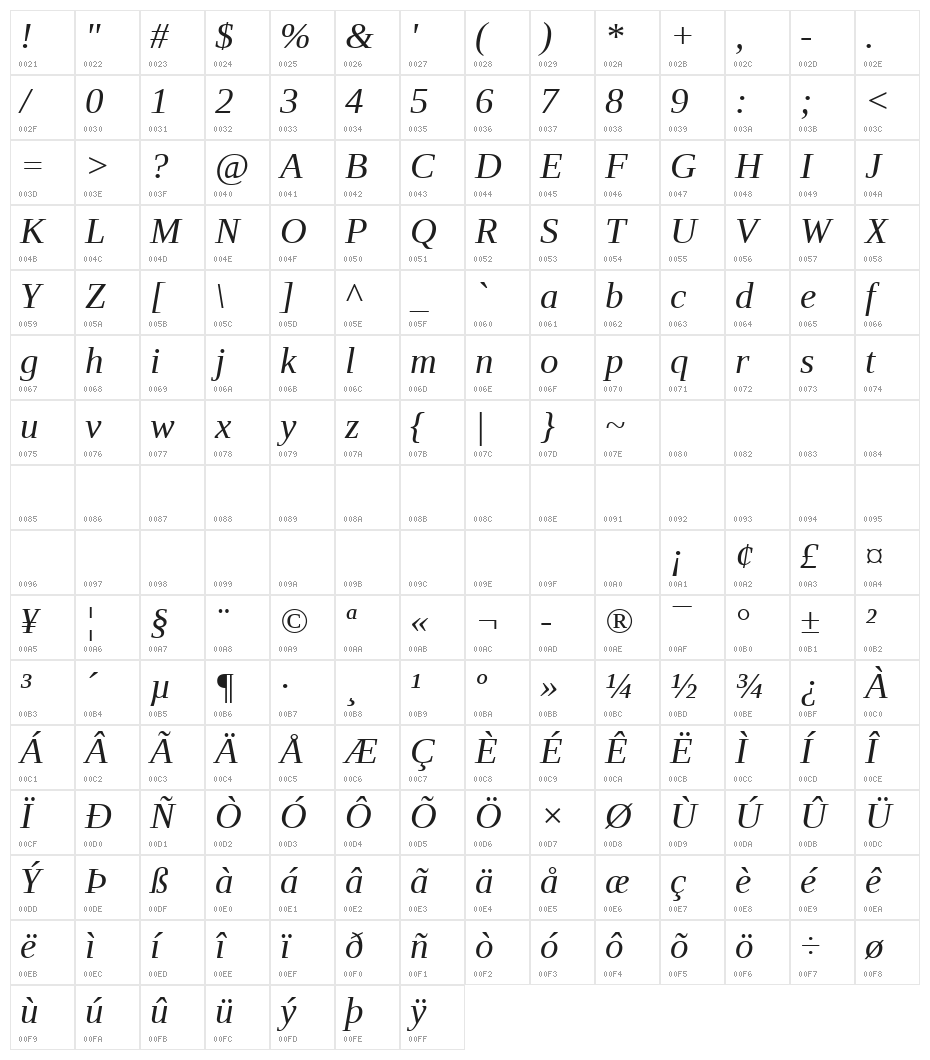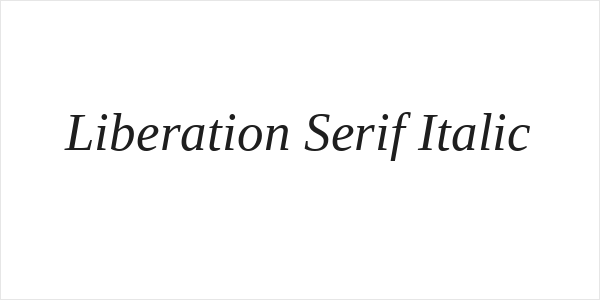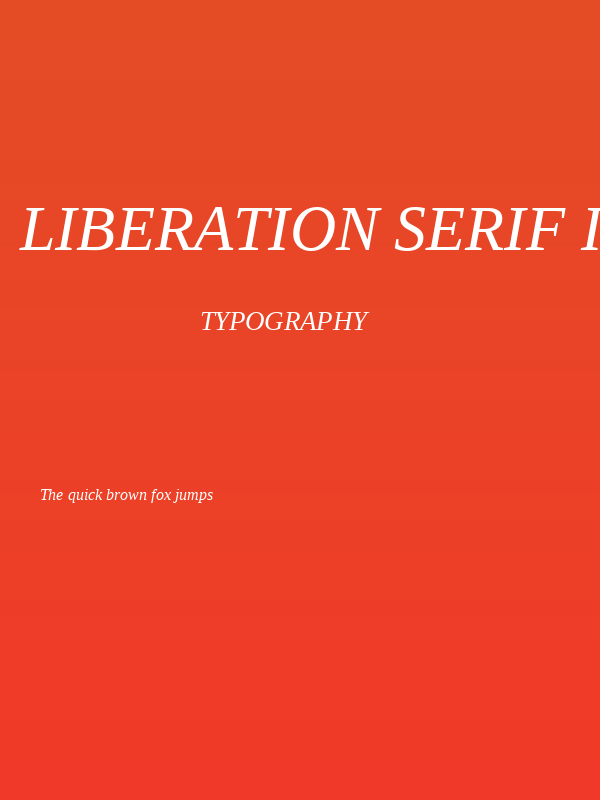
Liberation Serif Italic Font
Liberation Serif Italic Description
This font features a classic serif style with a distinct italic slant, offering a sophisticated and elegant appearance. The characters have a traditional serif structure, with fine details that enhance readability and add a touch of formality. The italicization provides a dynamic and flowing look, making it suitable for conveying emphasis or elegance in text. The font maintains a balanced weight, ensuring that it is neither too bold nor too light, which contributes to its versatility across various applications. The spacing between characters is normal, allowing for clear legibility without appearing cramped or overly spaced. This font's medium contrast in stroke thickness adds to its readability while maintaining a refined aesthetic.
| Use Case | Body text, Headlines, Formal documents |
| Proposed Projects | Ideal for use in formal documents, book publishing, elegant invitations, and sophisticated branding. |